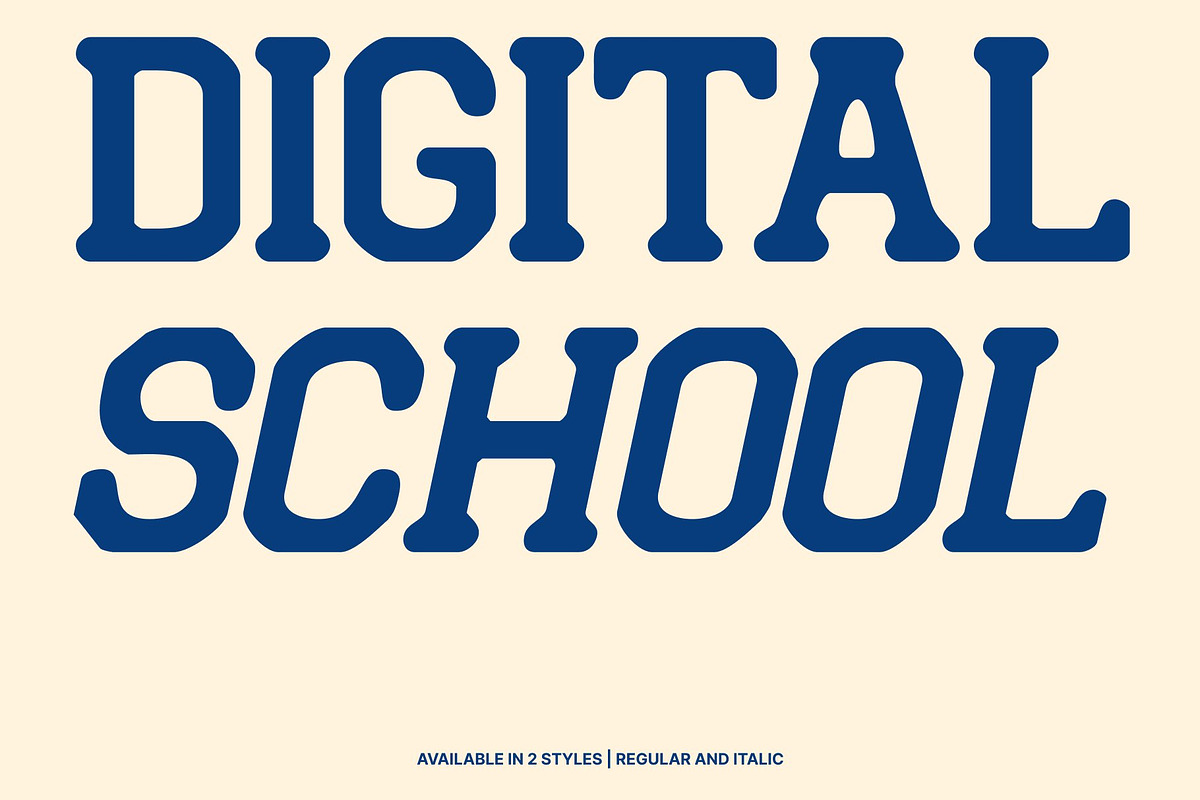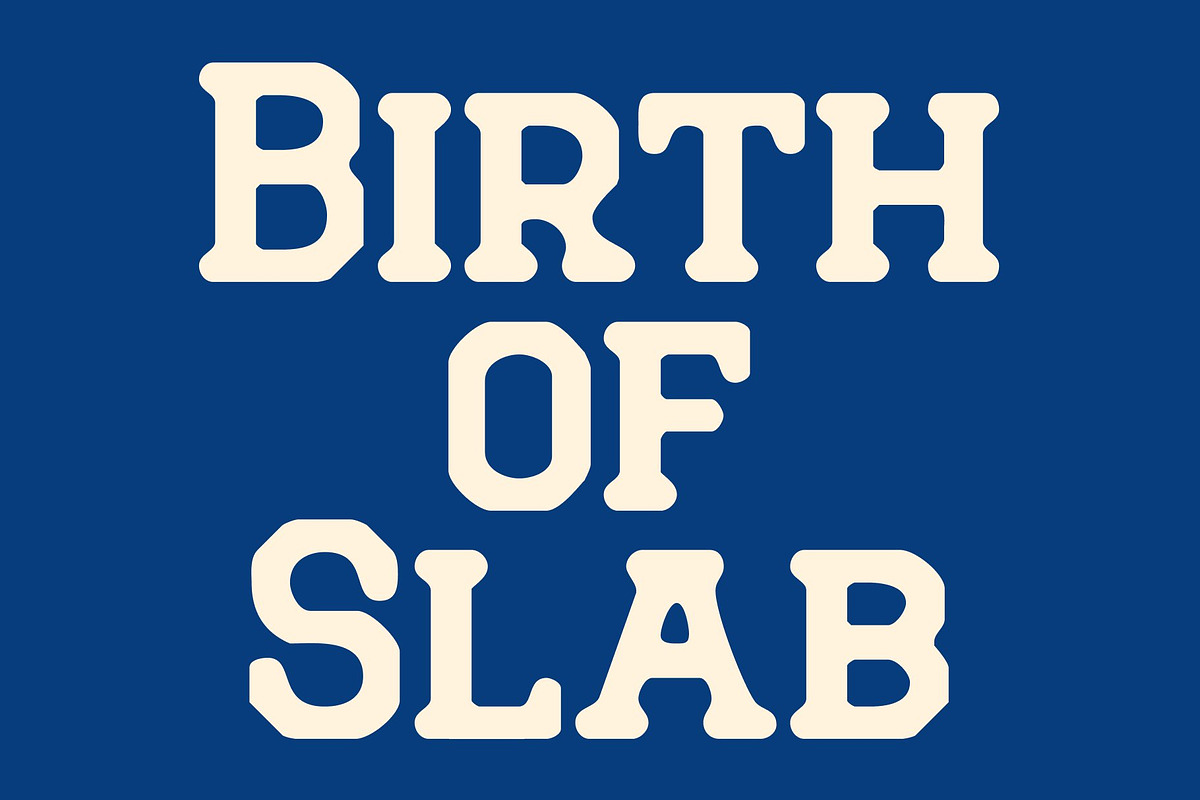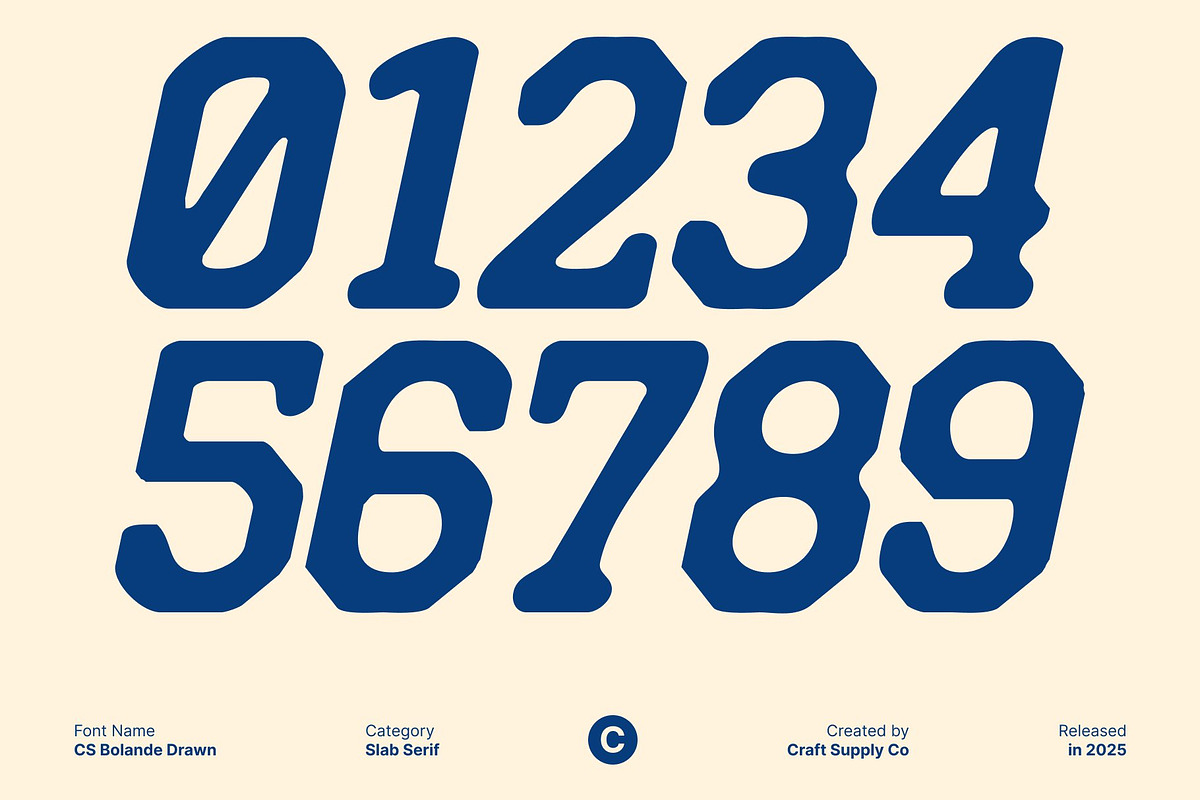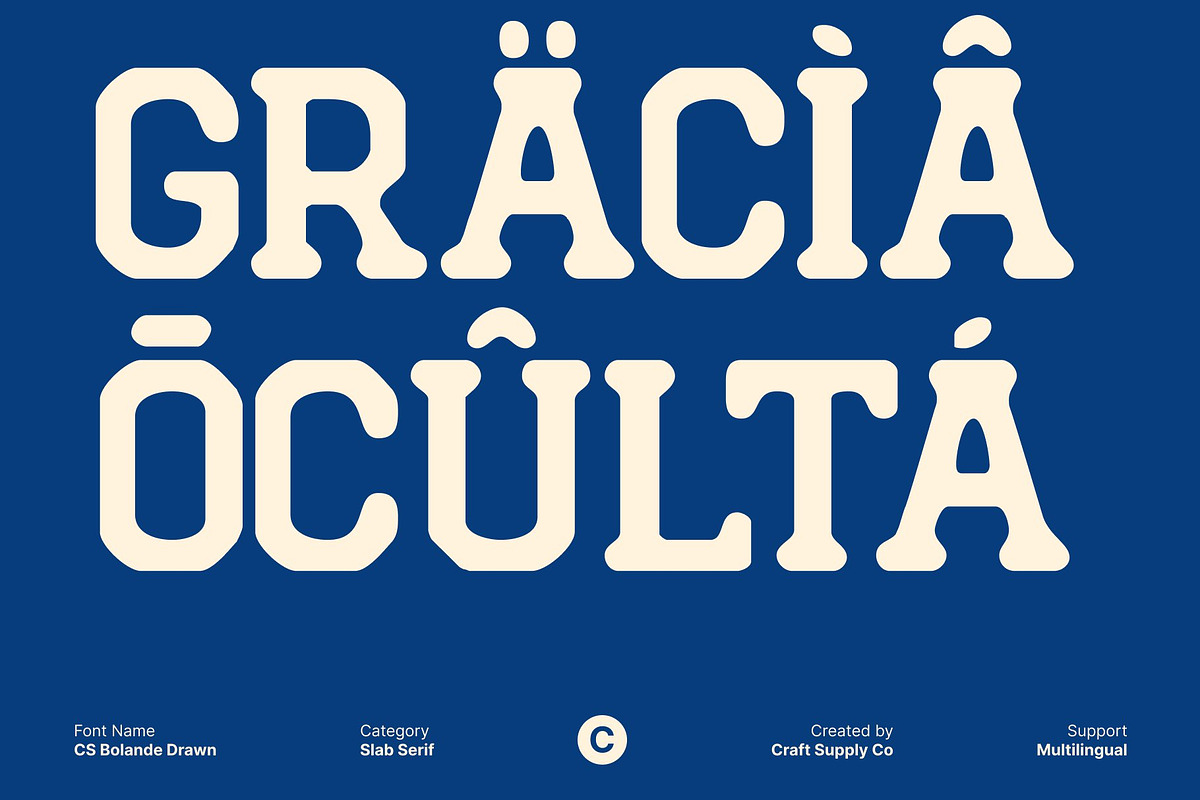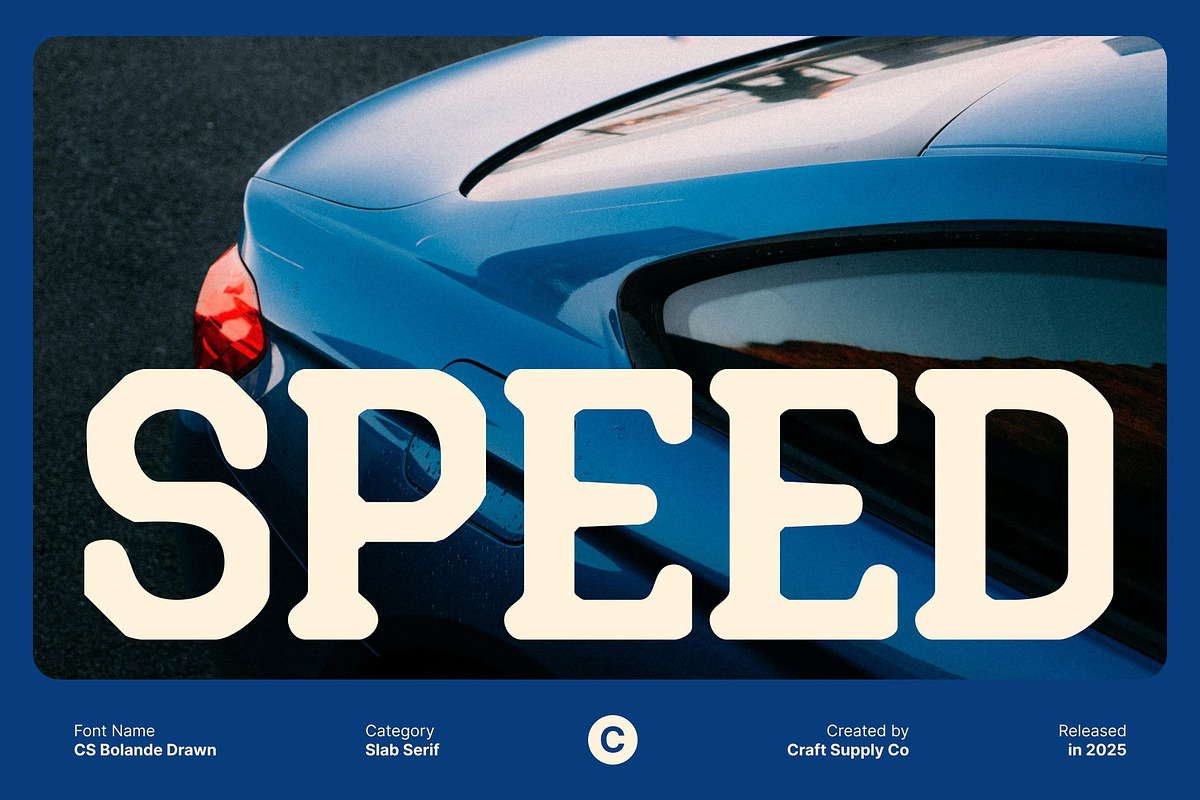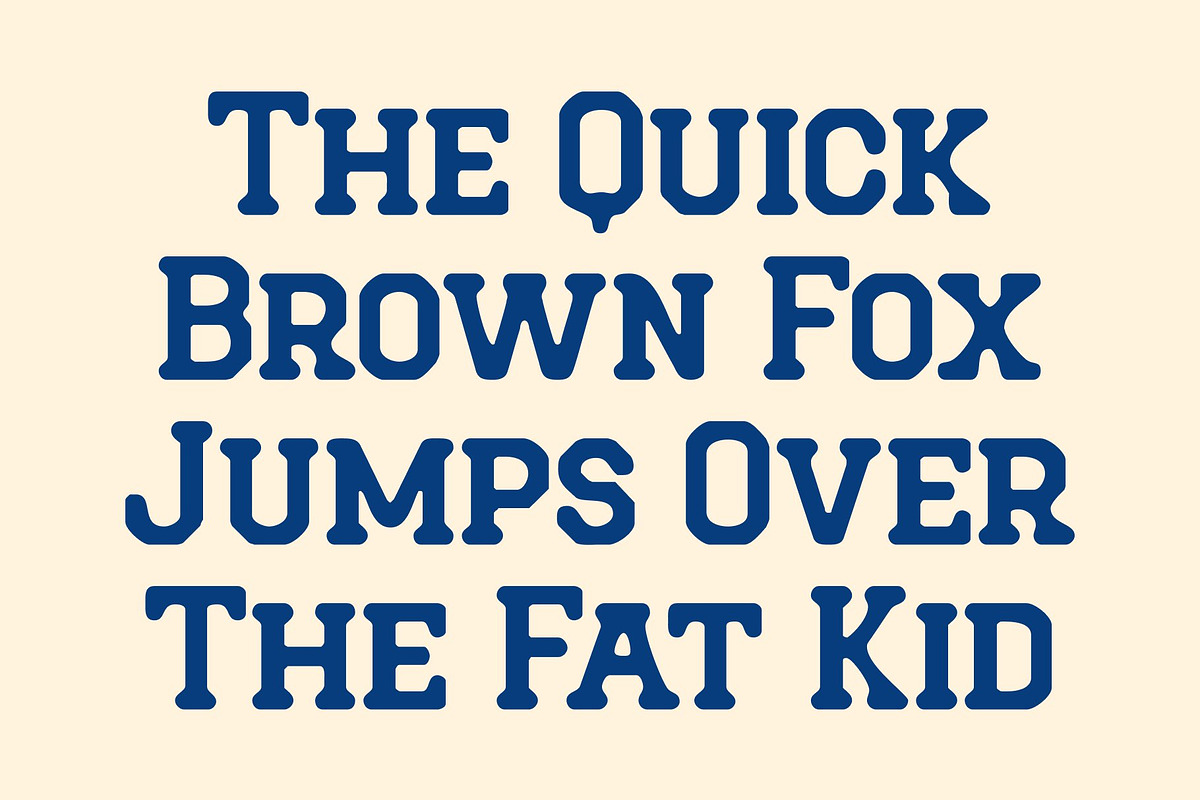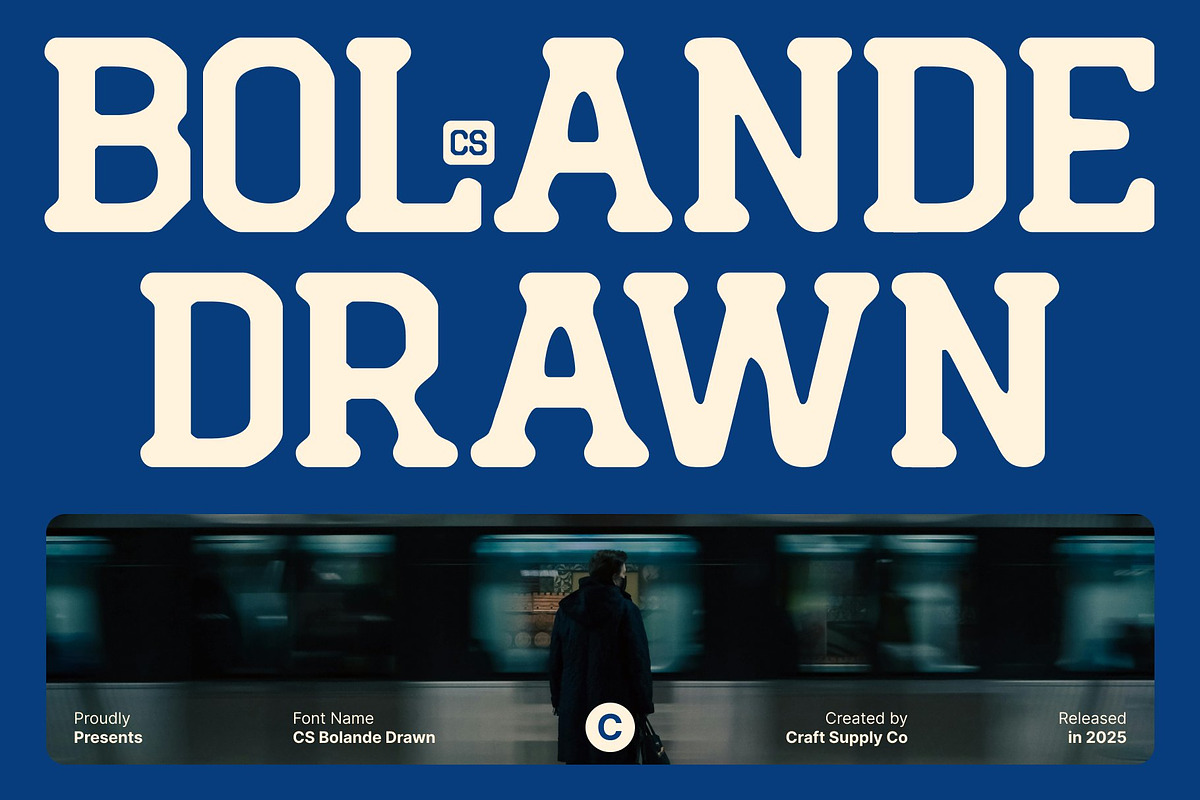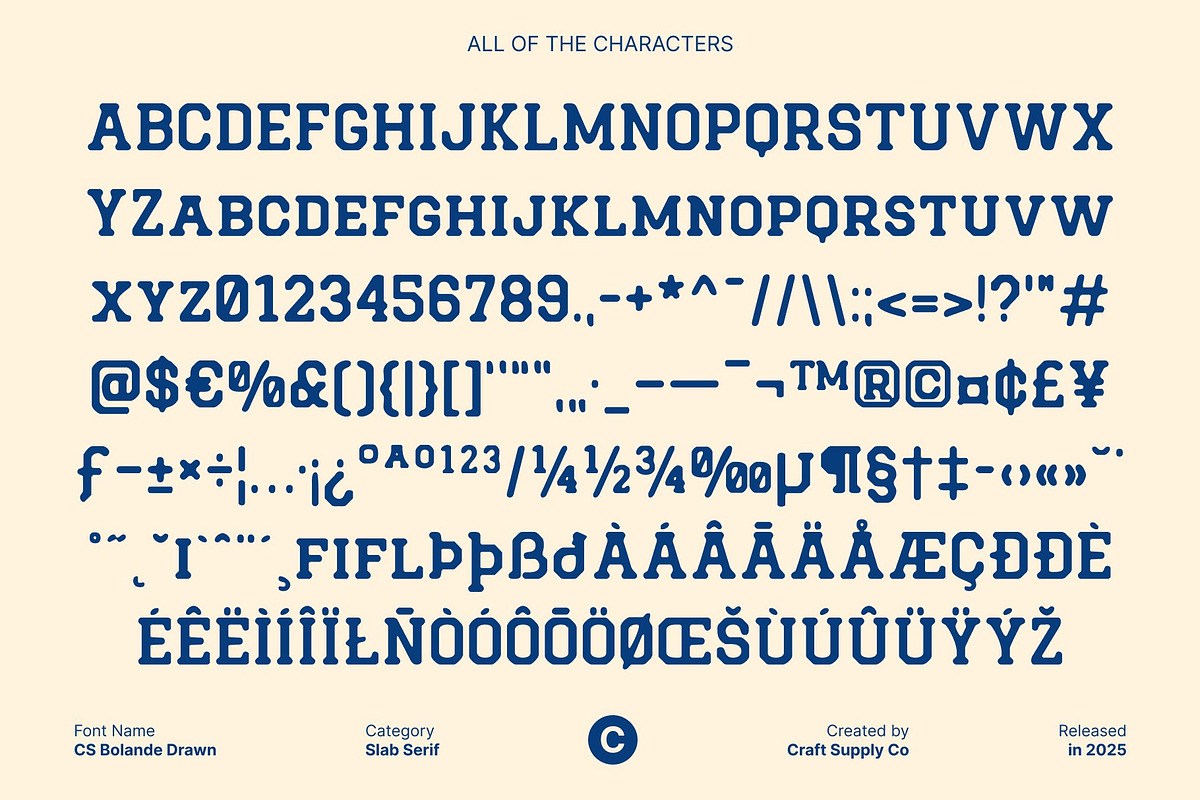
CS Bolande Drawn
CS Bolande Drawn – Sharp Slab Serif for Modern Impact
Strong Slab Serif for Confident Design This is a sharp slab serif typeface built from bold, block-like forms that deliver a powerful and commanding visual presence. Designed with clean precision and sturdy construction, it communicates strength, authority, and modern confidence. The drawn texture adds subtle character, giving the font a handcrafted edge without diminishing its solid, structured feel.
Sharp Structure with Impressive Readability Engineered for clarity, this font features geometric precision and firm proportions that enhance legibility at any size. Its well-defined slab serifs anchor each letter, creating stability and balance across headlines, posters, and branding applications. Whether used in uppercase or lowercase, the font maintains a consistent rhythm that feels sharp, modern, and easy to read.
Perfect for Posters, Branding, and Modern Visuals This font excels in high-impact designs such as posters, advertisements, logos, and bold editorial layouts. Its crisp edges and confident stance capture attention instantly, while the slab serif structure ensures a timeless appeal. The drawn effect introduces subtle warmth, making the font feel expressive yet professional.
Versatile Expression with Timeless Strength Blending classic slab serif reliability with contemporary sharpness, this font bridges tradition and modern design seamlessly. It’s an ideal choice for designers seeking strong typographic statements that convey stability, sophistication, and modern impact across print and digital platforms.